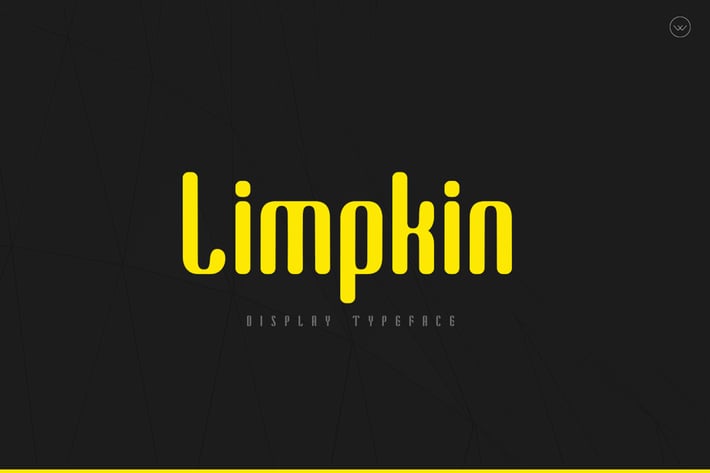
Limpkin Modern Font Family
Limpkin is a cool, creative and organic display font, featuring the perfect amount of trendiness.
Whether you’re using it for crafting, digital designing, presentations or greeting cards making, it’s perfect!
This beautiful and Creative Font suitable for Film Posters, headlines, Block letters, Subheadings, Logo Designs, Big Banners Decorative Typography, and Web Designs.